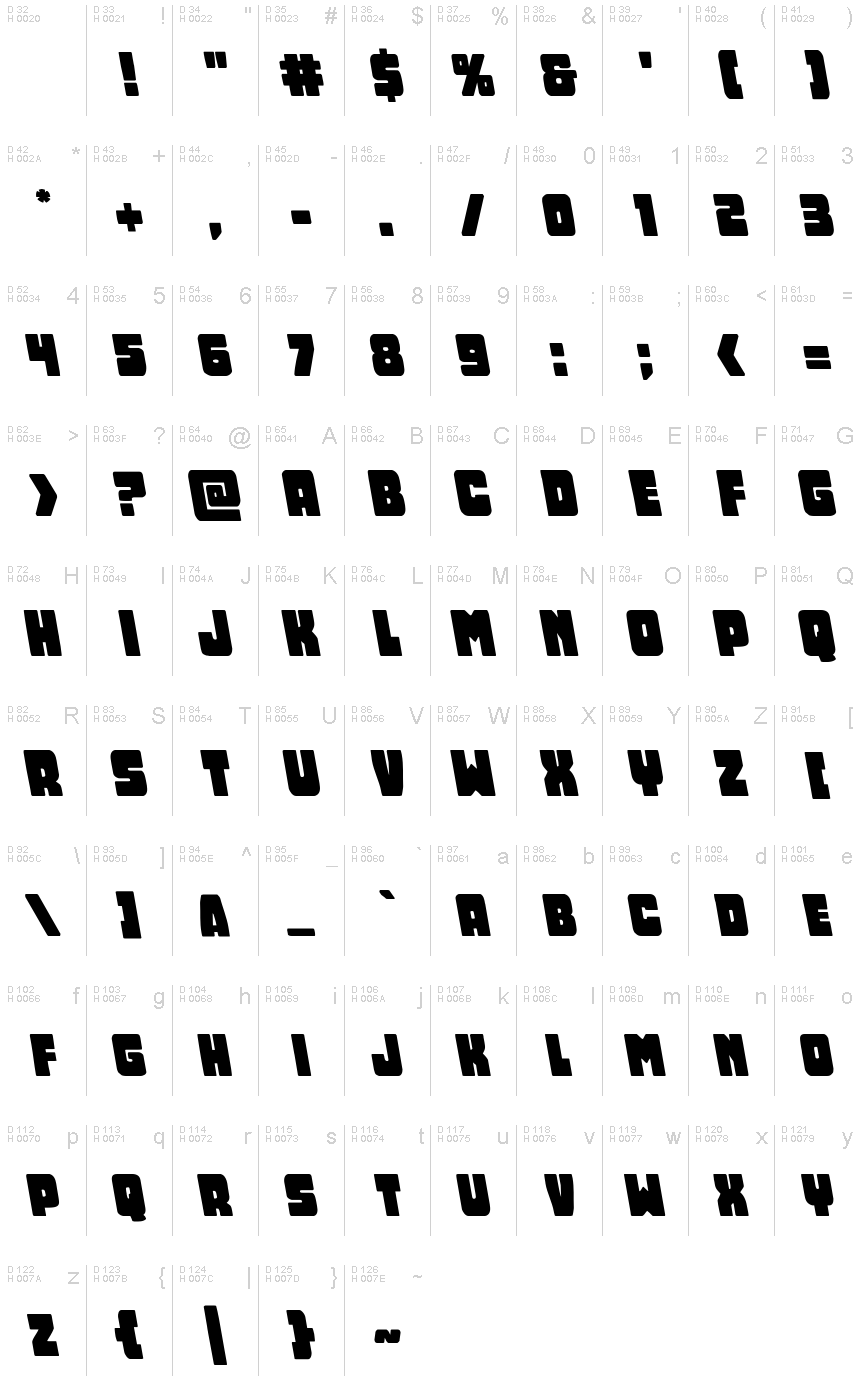
Opus Mundi Leftalic
Opus Mundi is a bold, condensed font that exudes a sense of precision and authority. Designed by Daniel Zadorozny, this display typeface boasts a striking, Leftalic aesthetic that commands attention.
The sharp, angular letterforms and generous negative space create a sleek, modern feel, making Opus Mundi an ideal choice for headlines, branding, and other high-impact design applications. Its condensed width allows it to pack a visual punch while maintaining legibility, ensuring it can be used effectively across a range of mediums and scales.
With its distinctive character and versatile nature, Opus Mundi is a font that can elevate the visual impact of any project.
The sharp, angular letterforms and generous negative space create a sleek, modern feel, making Opus Mundi an ideal choice for headlines, branding, and other high-impact design applications. Its condensed width allows it to pack a visual punch while maintaining legibility, ensuring it can be used effectively across a range of mediums and scales.
With its distinctive character and versatile nature, Opus Mundi is a font that can elevate the visual impact of any project.